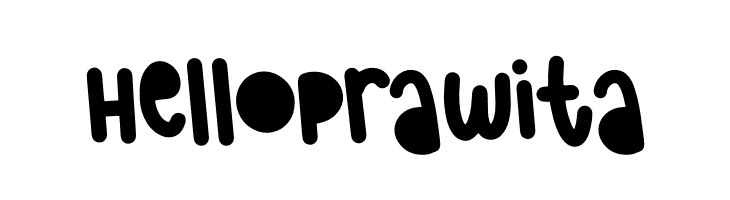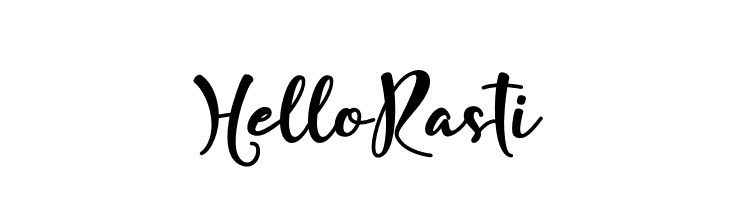
An elegant, flowing script font with graceful curves and thin strokes.
A bold, flowing script font with elegant curves and decorative flourishes.
A playful, handwritten font with smooth, flowing strokes and a casual style.
A quirky, decorative hand-drawn font with playful curls and irregular shapes.
A bold, playful font with a hand-drawn, quirky style.
A playful, rounded font with a hand-drawn appearance, ideal for informal projects.
A graceful script font with elegant loops and high contrast strokes.
An elegant script font with flowing, interconnected letters and a calligraphic style.
An elegant, flowing script font with a sophisticated and graceful appearance.